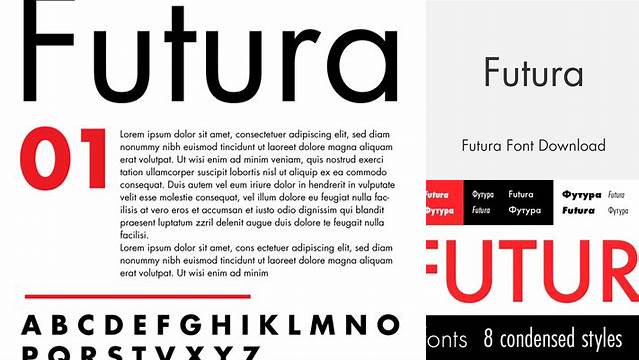
Hey guys! Are you looking for a sleek and modern font for your next design project? Look no further than the Futura font family! This geometric sans-serif typeface is a classic choice for a reason, and in this guide, we're going to dive deep into everything you need to know about it. We'll cover where to find a futura font family free download ttf, how to use it effectively, and explore its history and variations. So, let's get started!
1. What is the Futura Font Family?
Let's kick things off by understanding what exactly the futura font family is all about. This font, designed by Paul Renner in 1927, is a prime example of the geometric sans-serif style. Its clean lines and geometric shapes give it a timeless and modern feel. Think circles, triangles, and squares – that's the essence of Futura! This makes it incredibly versatile, suitable for everything from headlines and logos to body text (although it shines brightest in display settings). You've probably seen it used in countless places, from IKEA's old logo to the branding for Domino's Pizza. Its enduring popularity speaks volumes about its design and functionality. Understanding the core principles behind Futura's design will help you appreciate its elegance and make the most of it in your own projects. It's not just a font; it's a piece of design history!
2. History and Evolution of Futura Font
Delving into the history of the futura font family is like taking a trip back to the roaring twenties! Designed by Paul Renner in Germany, Futura emerged during the Bauhaus movement, which emphasized functionality and clean lines in art and design. Renner's vision was to create a typeface that reflected the modern era, moving away from the more ornate fonts of the time. He drew inspiration from geometric shapes, resulting in a font that was both visually striking and highly legible. Over the years, Futura has undergone several revisions and adaptations, with different foundries releasing their own versions. These variations might include subtle changes in weight, spacing, and character shapes. Some versions are optimized for specific uses, such as screen display or print. Understanding the historical context of Futura helps us appreciate its significance and how it has influenced the world of typography. It’s a testament to the power of simple, elegant design that continues to resonate today.
3. Key Characteristics of Futura Typeface
What makes the futura font family so recognizable and loved? It all boils down to its key characteristics. The most prominent feature is its geometric construction. Characters are based on perfect circles, triangles, and squares, giving it a clean, modern, and almost architectural feel. This geometric foundation contributes to its high legibility, especially in headlines and shorter blocks of text. Futura's uniform strokes and minimal contrast also play a crucial role in its distinctive appearance. Unlike fonts with thick and thin strokes, Futura maintains a consistent stroke width throughout, which adds to its visual harmony. Its tall x-height (the height of the lowercase letters) further enhances readability. When you combine these elements – geometric shapes, uniform strokes, and tall x-height – you get a typeface that is both stylish and functional. Recognizing these characteristics will help you identify Futura and understand why it works so well in various design contexts.
4. Futura Font Family Weights and Styles
The beauty of the futura font family lies not only in its design but also in its versatility, which is largely due to its various weights and styles. From the delicate Futura Light to the bold and impactful Futura Bold, there's a weight to suit every design need. The regular weight is perfect for body text, while the bolder weights are ideal for headlines and subheadings. In addition to weights, Futura also comes in different styles, including italic and condensed versions. The italic styles offer a softer, more elegant touch, while the condensed versions allow you to fit more text into a limited space. These variations provide designers with a wide range of options to play with, ensuring that Futura can be adapted to different projects and contexts. Whether you need a subtle and sophisticated look or a strong and assertive statement, the Futura font family has you covered. Exploring these different weights and styles is key to unlocking the full potential of this iconic typeface.
7. Risks of Downloading Fonts from Unreliable Sources
Guys, you gotta be careful where you get your fonts from! That futura font family free download ttf might seem tempting, but downloading fonts from unreliable sources is like opening a can of worms. You're not just risking a dodgy font file; you're potentially exposing your computer to malware, viruses, and other nasty stuff. Imagine downloading a font and suddenly your computer is acting all wonky, or worse, your personal data is compromised. Not cool, right? Unreliable sources often bundle fonts with malicious software, which can wreak havoc on your system. Plus, you might end up with a font that's incomplete, poorly designed, or even a fake version of the real deal. So, how do you stay safe? Stick to trusted websites, font foundries, and marketplaces. If a deal seems too good to be true, it probably is. Protecting your computer and your data is way more important than saving a few bucks on a font.
8. Reputable Websites for Font Downloads
Alright, so you know you need to be careful about where you download fonts. But where can you safely find a futura font family free download ttf (or a licensed version, at least)? There are tons of reputable websites out there that offer high-quality fonts without the risk of malware or legal issues. Font foundries like MyFonts, Adobe Fonts, and Linotype are excellent starting points. They have vast libraries of fonts, including Futura, and offer various licensing options to suit your needs. Websites like Google Fonts also provide a wide selection of free, open-source fonts that are perfect for various projects. When browsing for fonts, look for sites that have clear licensing information and a good reputation within the design community. User reviews and ratings can also give you a sense of the website's reliability. By sticking to these reputable sources, you can ensure that you're getting high-quality fonts that are safe to use and legally compliant.
9. Free Alternatives to Futura Font
Okay, so maybe the futura font family free download ttf is proving elusive, or perhaps you're looking for a budget-friendly option. No worries! The good news is there are plenty of fantastic free alternatives to Futura that capture a similar geometric and modern vibe. Fonts like Montserrat, Lato, and Open Sans are excellent choices. They share Futura's clean lines and geometric shapes, making them versatile for a wide range of design projects. Google Fonts is a treasure trove of these free alternatives, offering a huge selection of typefaces that you can use without any licensing fees. When choosing an alternative, consider the specific needs of your project. Think about the font's legibility, its weight variations, and how well it pairs with other fonts. Experiment with different options until you find the perfect fit. Remember, a free font doesn't mean you have to compromise on quality or style! With a little research, you can find a stunning Futura alternative that will elevate your designs.
10. How to Install Futura Font on Windows
Got your hands on a futura font family free download ttf (or a licensed version)? Awesome! Now, let's get it installed on your Windows machine so you can start using it in your projects. The process is actually pretty straightforward. First, locate the TTF (TrueType Font) or OTF (OpenType Font) file that you downloaded. These are the file formats that fonts typically come in. Right-click on the font file and you'll see an option that says "Install." Click that, and Windows will take care of the rest. Alternatively, you can open the font file, and a preview window will pop up with an install button at the top. Click that, and you're good to go! If you want to install multiple fonts at once, simply select all the font files, right-click, and choose "Install." Once the font is installed, it should be available in all your applications, like Word, Photoshop, and InDesign. If you don't see it right away, try restarting the application. Easy peasy, right?
11. Installing Futura Font on macOS
Installing the futura font family free download ttf on a Mac is just as simple as it is on Windows. First things first, locate the TTF or OTF font file you downloaded. Once you've found it, there are a couple of ways to get it installed. The easiest way is to simply double-click the font file. This will open Font Book, macOS's built-in font management application. Font Book will show you a preview of the font and give you the option to install it. Just click the "Install Font" button, and you're done! Another method is to manually add the font to Font Book. Open Font Book (you can find it in your Applications folder), then drag and drop the font file into the Font Book window. Again, you'll be prompted to install the font. Once the font is installed, it should be available in all your applications. If you're not seeing it, try restarting the application or even your Mac. With these simple steps, you'll be rocking Futura on your Mac in no time!
12. Using Futura Font in Graphic Design
So, you've got the futura font family free download ttf installed and ready to go. Now, let's talk about how to actually use it in your graphic design projects! Futura is incredibly versatile, but like any font, it has its sweet spots. Its geometric and modern aesthetic makes it perfect for logos, headlines, and branding materials. Think about brands like Volkswagen and Supreme – they've both used Futura to create a sleek and contemporary look. When using Futura in your designs, consider the overall tone and message you want to convey. Its clean lines and minimalist style make it ideal for projects that need a touch of sophistication and modernity. Experiment with different weights and styles to see what works best for your design. Futura Bold is great for making a strong statement, while Futura Light can add a subtle elegance. Don't be afraid to play around and see how Futura can elevate your designs!
13. Futura Font for Logo Design
When it comes to logo design, the futura font family is a real powerhouse. Its clean, geometric shapes and timeless appeal make it a fantastic choice for creating logos that are both modern and memorable. Think about some of the iconic logos that use Futura, like those of Domino's Pizza and Supreme. These logos have a simple yet impactful design, thanks in part to the font's inherent legibility and visual clarity. When using Futura for a logo, consider the brand's personality and target audience. Futura's minimalist style works well for brands that want to project a sense of sophistication, innovation, or trustworthiness. Experiment with different weights and styles to achieve the desired effect. A bold weight can convey strength and confidence, while a lighter weight can create a more delicate and refined feel. Pay attention to the letter spacing and kerning to ensure that your logo looks polished and professional. With its versatility and timeless appeal, Futura can help you create a logo that stands the test of time.
14. Futura Font in Web Design
Using the futura font family in web design can give your website a sleek and modern look. Its clean lines and geometric structure make it highly legible, which is crucial for online reading. However, it's important to use Futura strategically on the web. While it excels in headings and navigation menus, using it for large blocks of body text can sometimes be challenging. Its geometric shapes, while visually appealing, can make it slightly less readable than fonts specifically designed for body text. When incorporating Futura into your web design, consider pairing it with a more readable font for body text, such as Open Sans or Lato. These fonts complement Futura's style while ensuring a comfortable reading experience for your visitors. Also, pay attention to font sizes and line heights to optimize readability. Futura's different weights can be used to create visual hierarchy and guide the user's eye through the page. With careful planning, Futura can be a fantastic asset for creating a stylish and user-friendly website.
15. Futura Font for Print Materials
The futura font family isn't just for digital designs; it shines just as brightly in print materials. Its clean and geometric forms make it an excellent choice for brochures, posters, magazines, and other printed materials. In print, Futura's crisp lines and clear letterforms ensure excellent legibility, even at smaller sizes. This makes it a great option for body text as well as headlines. When using Futura in print, consider the overall design aesthetic and the message you want to convey. Its modern and minimalist style pairs well with clean layouts and bold graphics. Experiment with different weights and styles to create visual interest and hierarchy. Futura Bold can be used to grab attention, while Futura Light can add a touch of elegance. Pay attention to the paper stock and printing techniques you're using. The texture and color of the paper can affect how the font appears, so it's important to choose wisely. With its timeless appeal and versatility, Futura is a reliable choice for creating stunning print materials.
16. Pairing Futura Font with Other Typefaces
The futura font family is a fantastic typeface on its own, but it really shines when paired with the right complementary fonts. Choosing the perfect font pairing can elevate your design and create a harmonious visual experience. When pairing Futura, it's important to consider the overall style and tone you want to achieve. Since Futura is a geometric sans-serif, it often pairs well with other sans-serif fonts that have a more humanist or organic feel. This creates a nice contrast and prevents your design from feeling too sterile or rigid. Some excellent sans-serif pairings for Futura include Open Sans, Lato, and Roboto. For a more dramatic contrast, you can also pair Futura with a serif font. Classic serif fonts like Garamond or Times New Roman can create a sophisticated and elegant look, while more modern serifs like Playfair Display can add a touch of personality. Experiment with different combinations and see what works best for your project. Don't be afraid to mix and match until you find the perfect pairing that enhances your design.
17. Common Mistakes When Using Futura Font
Even though the futura font family is a versatile and beautiful typeface, it's easy to make mistakes if you're not careful. One of the most common pitfalls is overusing Futura. While it's great for headlines and shorter blocks of text, using it for large paragraphs of body text can make your design look monotonous and even strain the reader's eyes. Another mistake is not considering the context of your design. Futura's modern and geometric style might not be the best fit for every project. For example, it might not be the ideal choice for a design that needs a more traditional or whimsical feel. Kerning issues are also a common problem. Futura's letterforms require careful kerning to ensure a balanced and professional look. Incorrect kerning can make the text appear uneven and unprofessional. Finally, using too many different weights and styles of Futura in a single design can create visual clutter and detract from the overall impact. Stick to a limited palette of weights and styles to maintain consistency and clarity. By avoiding these common mistakes, you can make the most of Futura's potential and create stunning designs.
18. Futura Font in Branding and Identity
Using the futura font family in branding and identity can give your brand a modern, sophisticated, and timeless appeal. Its clean lines and geometric shapes convey a sense of clarity, efficiency, and innovation, making it a popular choice for businesses that want to project a forward-thinking image. Think about brands like IKEA (in its older branding) and Supreme – they've both leveraged Futura's distinctive style to create a strong and memorable brand identity. When incorporating Futura into your branding, consider how it aligns with your brand values and target audience. Its minimalist aesthetic works well for brands that want to project a sense of simplicity, elegance, or professionalism. Use Futura consistently across all your branding materials, from your logo and website to your business cards and marketing collateral, to create a cohesive and recognizable brand identity. Experiment with different weights and styles to create visual hierarchy and emphasis. Futura Bold can be used for headlines and calls to action, while Futura Light can be used for body text and supporting information. With its versatility and timeless appeal, Futura can be a powerful asset for building a strong and lasting brand identity.
19. Futura Font Licensing Options
Before you dive headfirst into using the futura font family, it's crucial to understand the licensing options. Remember, fonts are software, and using them without a proper license can lead to legal issues. Futura, being a commercial font, typically requires a license for both personal and commercial use. Font foundries like Monotype, Linotype, and Adobe offer various licensing options to suit different needs. A desktop license is the most common type, allowing you to install the font on your computer and use it for print and graphic design projects. Web licenses are required if you want to use Futura on your website, while app licenses are necessary for embedding the font in mobile applications. Some foundries also offer enterprise licenses for larger organizations with specific needs. The cost of a Futura license can vary depending on the type of license and the number of users. Before purchasing a license, carefully consider how you plan to use the font and choose the option that best fits your needs. Always read the licensing agreement thoroughly to ensure you're complying with the terms and conditions. Playing it safe with font licensing will save you headaches (and potential legal fees) in the long run!
20. Understanding Font File Formats (TTF, OTF)
When you're searching for a futura font family free download ttf, you'll often encounter different font file formats, mainly TTF and OTF. Understanding these formats is essential for ensuring compatibility and optimal performance. TTF, or TrueType Font, is one of the oldest and most widely supported font formats. It's compatible with both Windows and macOS and works well for most design applications. OTF, or OpenType Font, is a more modern format that builds upon TTF. It offers several advantages, including better support for advanced typographic features like ligatures and alternate characters. OTF fonts also tend to have better scalability, meaning they look crisp and clear at any size. While both TTF and OTF fonts can be used in most situations, OTF is generally the preferred choice for professional design work due to its enhanced features and scalability. When downloading fonts, pay attention to the file format and choose the one that best suits your needs. If you have the option, OTF is usually the way to go!
21. Futura Font and Readability
Readability is key in design, and the futura font family, while stylish, has some nuances to consider in this area. Futura's geometric design, while visually appealing, can sometimes make it less readable than other fonts, especially in large blocks of text. Its uniform strokes and lack of significant contrast can make it challenging for the eye to differentiate between letters, particularly at smaller sizes. However, this doesn't mean Futura is inherently unreadable. It excels in headlines, subheadings, and short bursts of text where its clean lines and modern aesthetic can shine. The key is to use Futura strategically. Avoid using it for lengthy paragraphs of body text. Instead, pair it with a more readable font for the main content of your design. Pay attention to font size and line height to optimize readability. A larger font size and generous line spacing can help improve legibility. By understanding Futura's strengths and limitations in terms of readability, you can use it effectively to create visually stunning and user-friendly designs.
22. Futura Font in Different Design Styles
The futura font family is a chameleon of the design world, adapting seamlessly to various styles and aesthetics. Its versatility makes it a valuable asset for designers working on a wide range of projects. In minimalist designs, Futura's clean lines and geometric simplicity shine, creating a sense of understated elegance. It pairs beautifully with white space and minimal color palettes, enhancing the overall sense of clarity and sophistication. In modern and contemporary designs, Futura's modern aesthetic fits right in, adding a touch of sleekness and innovation. It works well with bold colors, geometric shapes, and dynamic layouts. For retro designs, Futura's origins in the Bauhaus movement give it a vintage charm that complements mid-century modern and Art Deco styles. It can be used to evoke a sense of nostalgia and timelessness. Even in more playful and whimsical designs, Futura can add a touch of sophistication and balance. By understanding how Futura works in different design styles, you can leverage its versatility to create visually stunning and impactful projects.
23. How to Kern Futura Font Properly
Kerning, the adjustment of spacing between individual letters, is crucial for achieving a polished and professional look, especially with the futura font family. Due to its geometric design, Futura can sometimes have uneven spacing between letters, which can detract from its overall aesthetic. Proper kerning ensures that the letters are visually balanced and the text is easy to read. When kerning Futura, pay close attention to the spaces between letters like "A" and "V," "W" and "A," and "T" and "o." These letter combinations often require manual kerning adjustments to create a consistent visual rhythm. Use your design software's kerning tools to fine-tune the spacing between letters. Start by looking for obvious gaps or overlaps and adjust the kerning values accordingly. It's often helpful to squint at the text or view it from a distance to identify areas that need adjustment. Remember, the goal of kerning is to create a visual harmony where the letters appear evenly spaced and the text flows smoothly. Mastering kerning will elevate your typography and make your designs look more professional.
24. Using Futura Font for Headlines and Subheadings
The futura font family truly excels when used for headlines and subheadings. Its clean, bold forms grab attention and create a strong visual hierarchy, making it easy for readers to scan and understand the structure of your content. Futura's geometric shapes and modern aesthetic add a touch of sophistication and style to any design. When using Futura for headlines, consider the overall tone and message you want to convey. Futura Bold is perfect for making a strong and assertive statement, while Futura Light can add a touch of elegance and refinement. Experiment with different font sizes and weights to create visual interest and emphasize key information. Pair Futura headlines with a more readable font for body text to ensure a comfortable reading experience. Also, pay attention to letter spacing and kerning to ensure that your headlines look polished and professional. With its inherent legibility and visual impact, Futura is an excellent choice for making your headlines stand out.
25. Futura Font and Accessibility
Accessibility is a critical consideration in design, and it's important to think about how the futura font family measures up in this area. While Futura is a visually appealing font, its geometric design can present some challenges for readers with visual impairments. Its uniform strokes and lack of significant contrast can make it difficult to distinguish between letters, especially at smaller sizes. To ensure accessibility, it's crucial to use Futura strategically. Avoid using it for large blocks of body text. Instead, opt for a more readable font that is specifically designed for accessibility, such as Open Sans or Arial. When using Futura for headlines and subheadings, make sure the font size is large enough and the contrast between the text and background is sufficient. Also, consider adding extra letter spacing to improve legibility. Provide alternative text for images and graphics that contain Futura text to ensure that screen readers can accurately convey the information. By following these guidelines, you can use Futura responsibly and create designs that are both visually stunning and accessible to everyone.
26. Futura Font Inspiration: Famous Uses
The futura font family has a rich history of iconic usage, serving as a source of inspiration for designers worldwide. Its clean lines and geometric forms have graced the logos, branding, and marketing materials of countless famous brands and organizations. Think about IKEA's older logo, which used Futura to convey a sense of Scandinavian simplicity and functionality. The Supreme logo, with its bold Futura text in a red box, is another instantly recognizable example of Futura's impact. Volkswagen has also used Futura extensively in its branding, reflecting the brand's commitment to precision and engineering excellence. Beyond branding, Futura has been used in countless film posters, book covers, and editorial designs. Its versatility and timeless appeal make it a go-to choice for designers who want to create a modern and sophisticated look. Studying these famous uses of Futura can provide valuable insights into how to use the font effectively in your own projects. It's a testament to Futura's enduring legacy and its ability to elevate any design.
27. Alternatives to Futura Font in Specific Software (e.g., Canva)
Finding a futura font family free download ttf can be tricky, and sometimes you need alternatives within specific design software like Canva. Canva, while offering a wide range of fonts, might not always have Futura readily available. The good news is there are several excellent alternatives that capture Futura's geometric and modern vibe. Montserrat is a popular choice, known for its clean lines and versatility. Lato is another great option, offering a slightly warmer and more humanist feel while still maintaining a geometric structure. Open Sans is a highly readable font that works well for both headlines and body text, making it a solid alternative to Futura. When choosing an alternative in Canva, consider the overall design aesthetic you're aiming for and the specific needs of your project. Experiment with different fonts and weights to find the perfect fit. Canva's font pairing suggestions can also be a helpful resource for finding fonts that complement each other. With a little exploration, you can find a fantastic Futura alternative that will elevate your Canva designs.
28. Maintaining Font Consistency Across Platforms
Maintaining font consistency across different platforms and devices is crucial for ensuring that your designs look their best, no matter where they're viewed. The futura font family, like any font, can sometimes render differently depending on the operating system, browser, or application being used. This can lead to inconsistencies in spacing, kerning, and overall appearance. To minimize these issues, it's important to use web-safe fonts or embed fonts in your designs. Web-safe fonts are those that are commonly pre-installed on most operating systems, such as Arial, Helvetica, and Times New Roman. While Futura is not a web-safe font, you can use CSS font stacks to specify fallback fonts that will be used if Futura is not available. Embedding fonts involves including the font files directly in your website or document, ensuring that the font will render correctly regardless of the user's system. However, be mindful of licensing restrictions when embedding fonts. Use a consistent font size, line height, and letter spacing across all your designs to maintain a unified visual identity. By taking these steps, you can ensure that your Futura-based designs look consistent and professional across all platforms.
29. Troubleshooting Futura Font Issues
Even with the best planning, you might encounter issues when working with the futura font family. Don't panic! Most font-related problems have simple solutions. One common issue is the font not appearing in your application after installation. This can often be resolved by restarting the application or your computer. Sometimes, font files can become corrupted, leading to display problems or errors. If you suspect a corrupted font file, try downloading the font again from a reputable source. Font conflicts can also occur when multiple versions of the same font are installed on your system. Use a font management tool to disable or remove conflicting fonts. If you're experiencing kerning issues, make sure you've enabled kerning in your design software and manually adjust the kerning values as needed. If Futura is not rendering correctly on your website, double-check your CSS code and ensure that the font file is properly linked. By systematically troubleshooting these common issues, you can overcome most Futura font problems and keep your designs looking their best.
30. The Future of Futura Font
The futura font family, with its rich history and timeless appeal, has a bright future ahead. Its clean lines and geometric forms continue to resonate with designers, making it a staple in the world of typography. As design trends evolve, Futura's versatility allows it to adapt and remain relevant. Its minimalist aesthetic pairs well with contemporary design styles, while its Bauhaus origins give it a vintage charm that complements retro-inspired projects. The rise of digital design and web typography has presented new opportunities for Futura. Its excellent legibility and scalability make it a great choice for online applications, and its various weights and styles offer designers a wide range of options for creating engaging user experiences. As technology advances, we can expect to see even more innovative uses of Futura in interactive design, animation, and virtual reality. With its enduring legacy and adaptability, Futura is poised to remain a leading typeface for generations to come. Its future is as bright and bold as its design!